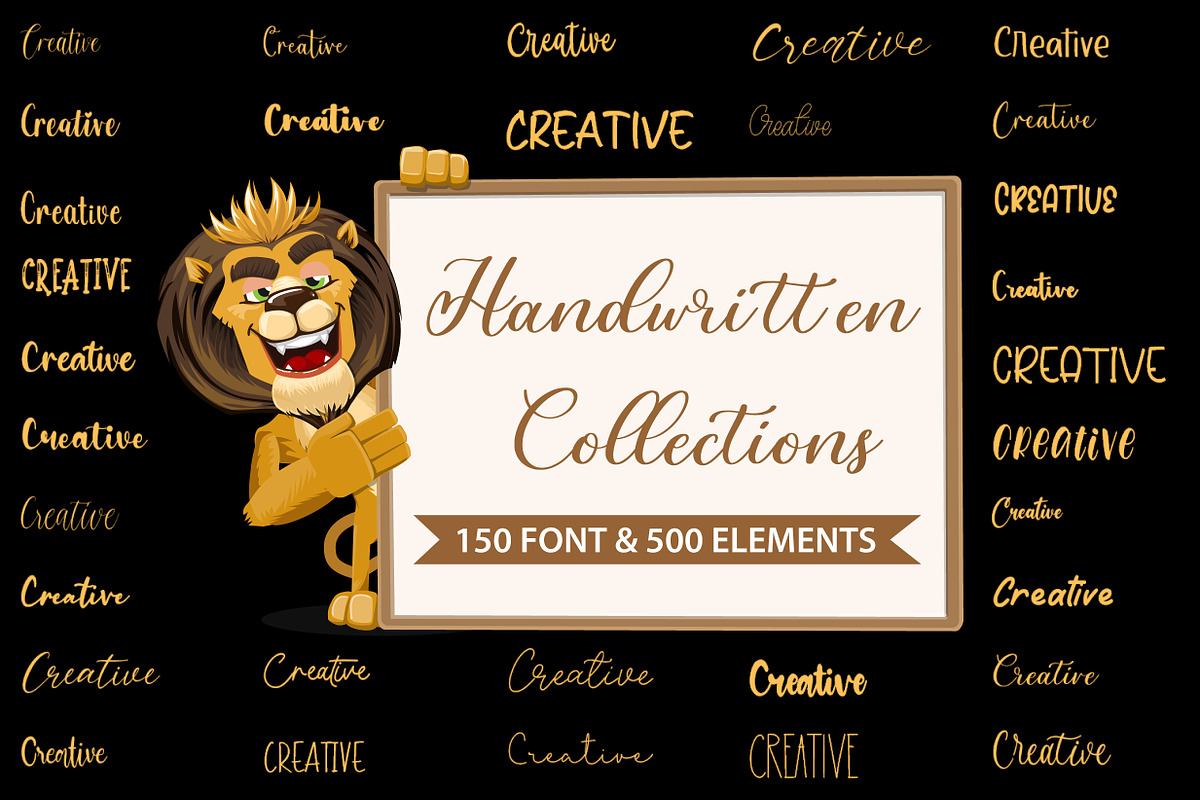
150 Handwritten Font and 500 Element Free Download
The 150 Handwritten Font and 500 Element Free Download is an extensive font and graphic bundle designed to offer versatility and creativity for your projects. With 150 handwritten fonts, this collection provides a wide range of script and print styles, perfect for personalizing logos, invitations, stationery, social media graphics, and more. In addition, the 500 elements included give you icons, flourishes, dividers, and decorative accents that add extra charm and personality to your design.
Using the 150 Handwritten Font and 500 Element Free Download provides you with endless design possibilities. Whether you are working on branding, promotional materials, or custom typography projects, this bundle gives you the flexibility to mix and match different fonts and elements to suit your creative needs.